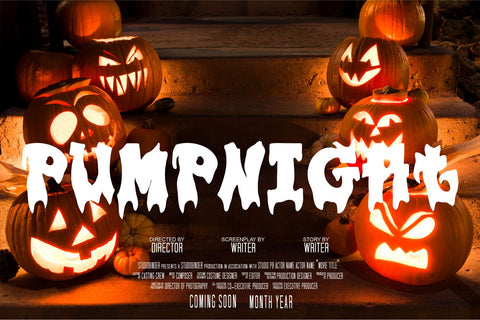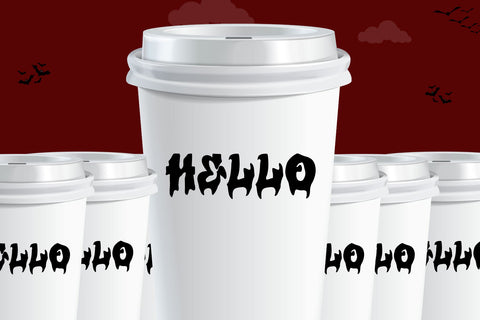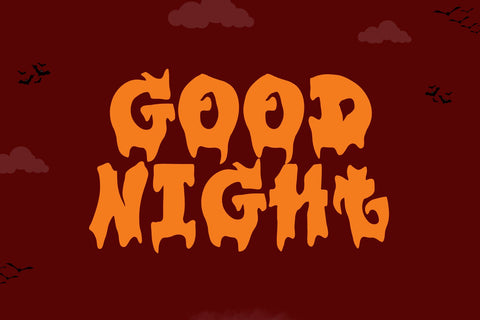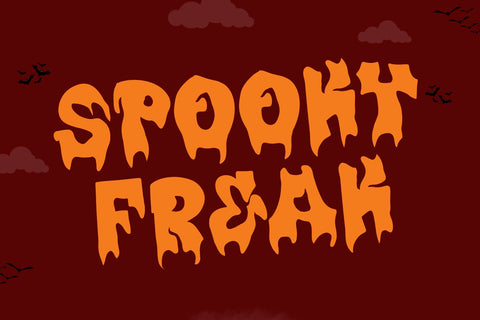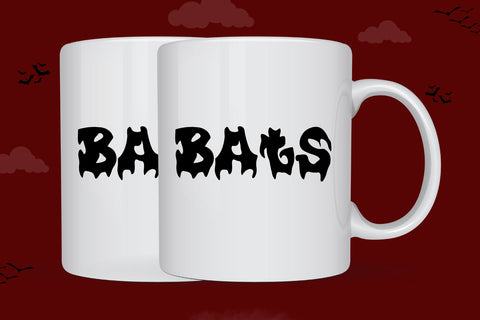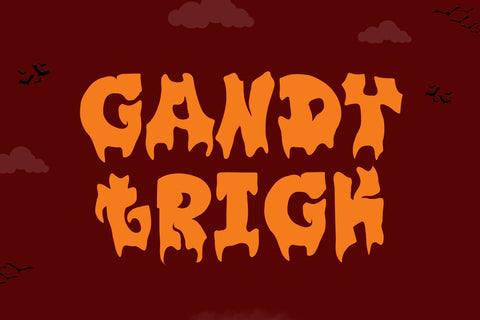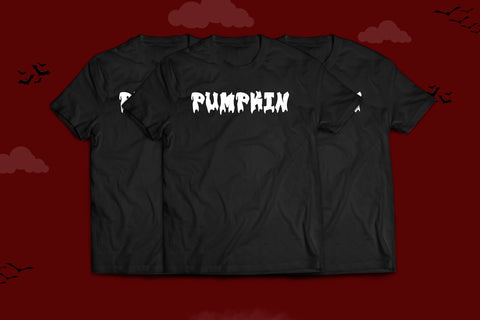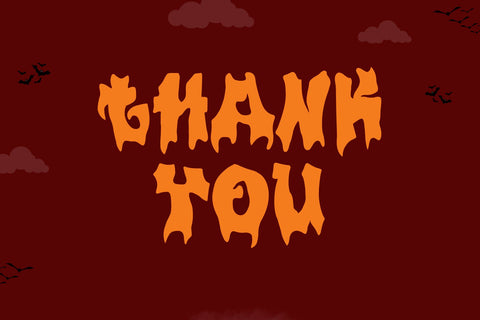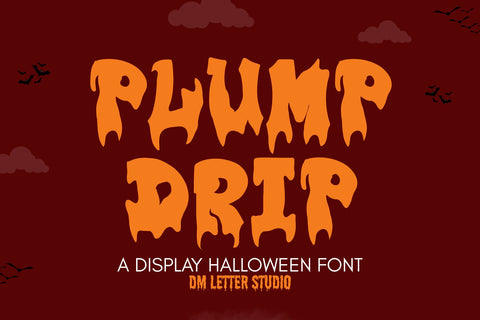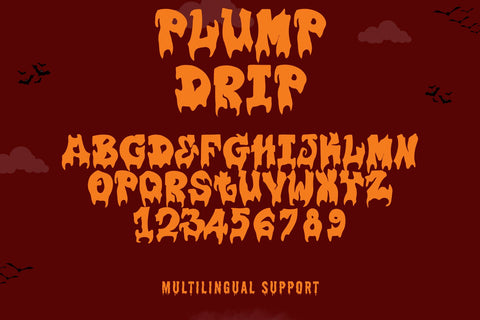
Plump Drip Font
Meet Plump Drip Font
Plump Drip Font brings gooey, high-impact letters to posters, shirts, stickers, and spooky social posts. Rounded bubble shapes melt into playful drips, so every word feels bold and fun. Because counters stay wide and spacing is even, your titles read clearly on thumbnails and still look dramatic on large prints. Use it for Halloween graphics, slime-themed birthday decor, streetwear drops, haunted event flyers, horror-comedy thumbnails, and candy shop labels.
Why creators love this drippy font
First, it has personality. Next, it cuts cleanly for Cricut, Silhouette, and laser projects. Then it layers beautifully with a thick shadow or offset fill, so two-color effects snap together in minutes. As a result, you can build full product lines—posters, tees, decals, mugs, and banners—without juggling multiple typefaces.
Ready for merch, labels, and posts
Creative ways to use Plump Drip Font
Short, stackable phrases like “Slime Time,” “Too Spooky,” or “Candy Rush.”
Two-tone fills: neon over charcoal, lime over black, grape over cream.
Pair with a neat condensed sans for prices, dates, or captions.
Add a light inner fill or glossy highlight for a wet, cartoony sheen.
Design tips for sticky-sweet results
Keep headlines short and chunky. Increase tracking slightly on all-caps lines. For photos, add a soft drop shadow to lift strokes from busy backgrounds. Finally, keep color palettes bright and candy-like to emphasize the playful drip effect.